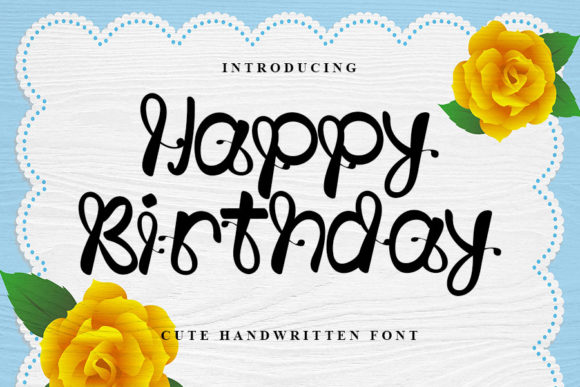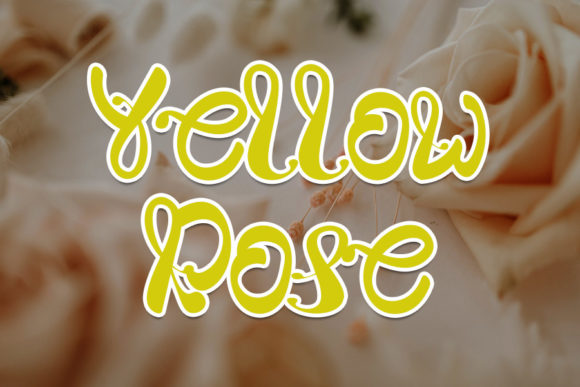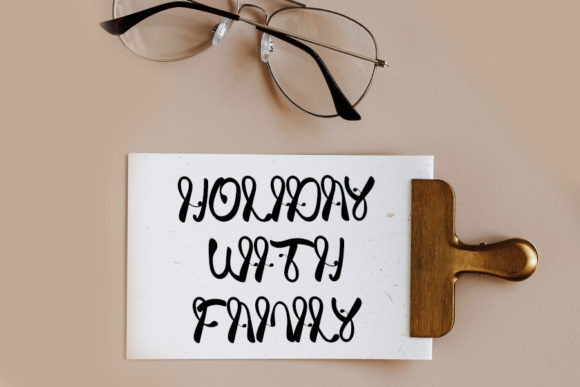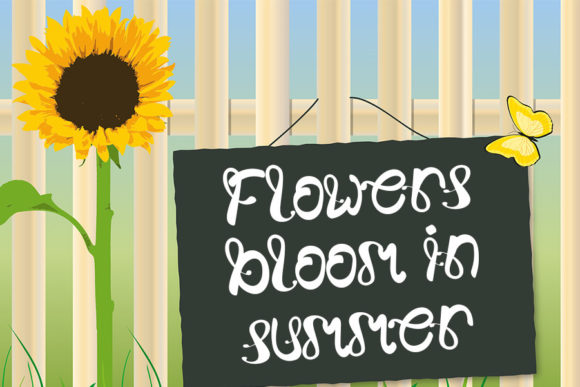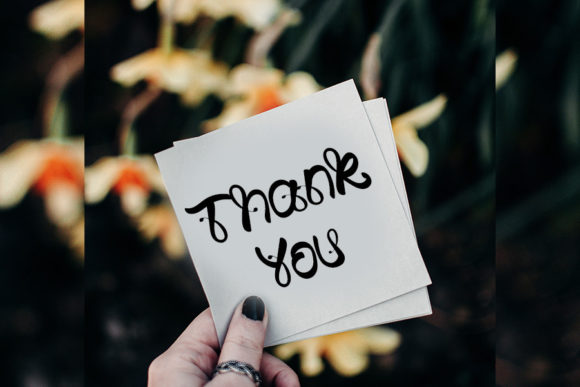
Happy Birthday Font
About Happy Birthday Font
Happy Birthday is a unique, simple and friendly handwritten font. It can easily be matched to an incredibly large set of projects, so add it to your creative ideas and notice how it makes them stand out!